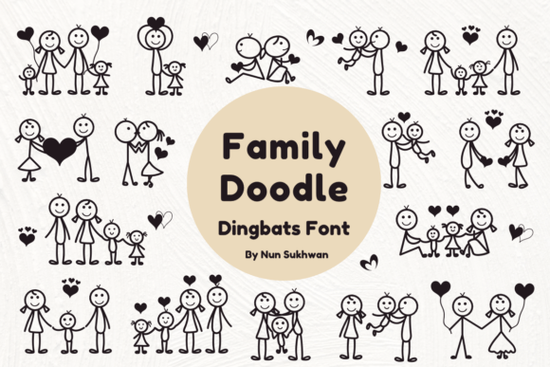
If you enjoy adding hand-drawn charm to your projects, the Family Doodle Font offers a collection of adorable stick figure illustrations. This dingbats font captures family moments with heartwarming poses, making it a great choice for scrapbooking, greeting cards, and personalized gifts. Whether you’re a crafter, a print‑on‑demand seller, or a small business owner, these playful doodles can bring a warm, personal touch to your work without needing advanced illustration skills.
How can you use the Family Doodle Font in your designs?
Because each character is a tiny drawing, you can type them like regular letters. That opens up a lot of creative possibilities:
- Scrapbooking layouts – Place stick‑figure families between photos to show activities like baking, reading, or walking together.
- Greeting cards – Use the heart‑holding doodle for a Valentine or the hug pose for a “thinking of you” card.
- Kid‑friendly invitations – Birthday party invites, baby showers, and family reunions become instantly more playful.
- DIY home decor – Print the doodles on canvas or wood signs for a cozy, handmade look.
- Merchandise for print‑on‑demand – Add them to t‑shirts, mugs, or tote bags aimed at parents and families.
The font works well in both digital and physical projects, and you can scale the doodles up or down without losing their cute, hand‑drawn feel.
Who is this font best suited for?
The Family Doodle Font is especially handy for:
- Hobbyist crafters who make personalized albums, cards, or gifts for friends and family.
- Print‑on‑demand sellers looking for family‑themed elements that don’t require separate vector files.
- Small business owners who create products for parents, teachers, or children’s events.
- Teachers and daycare providers – the simple stick figures are perfect for classroom newsletters or reward charts.
Even if you have no drawing experience, you can still produce professional‑looking family‑themed designs in minutes.
Practical tip for getting the most out of this font
Because the doodles are all at the same height, try pairing the Family Doodle Font with a simple sans‑serif text font for captions. For example, use the doodles as bullet points or icons beside a short message. This creates a clean, balanced layout that keeps the focus on your family‑themed content. You can also change the doodle color by selecting them and picking a new fill – most design software treats them like vector shapes once you convert them to outlines.